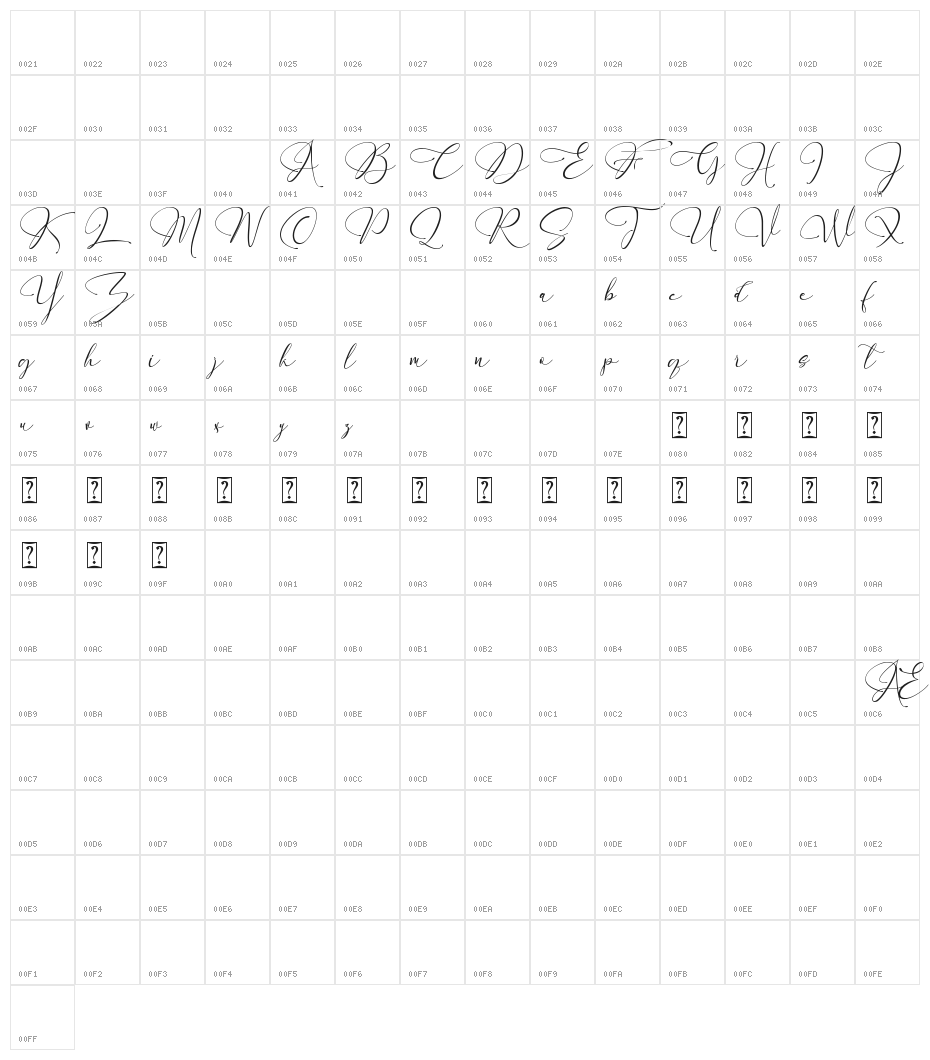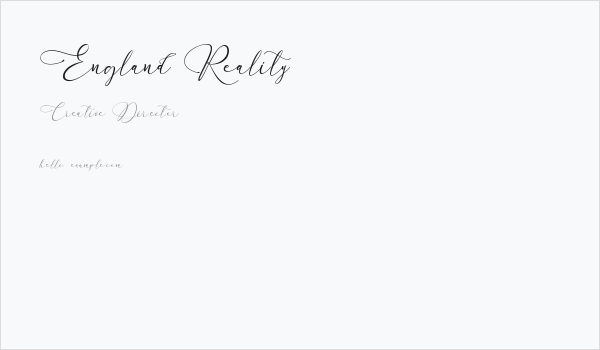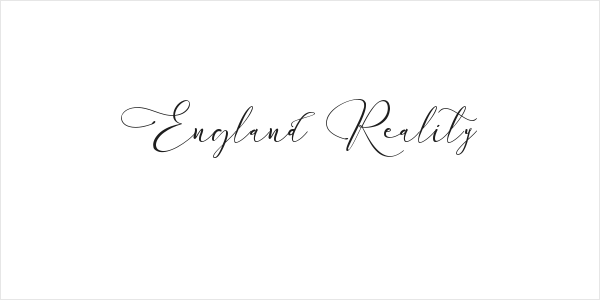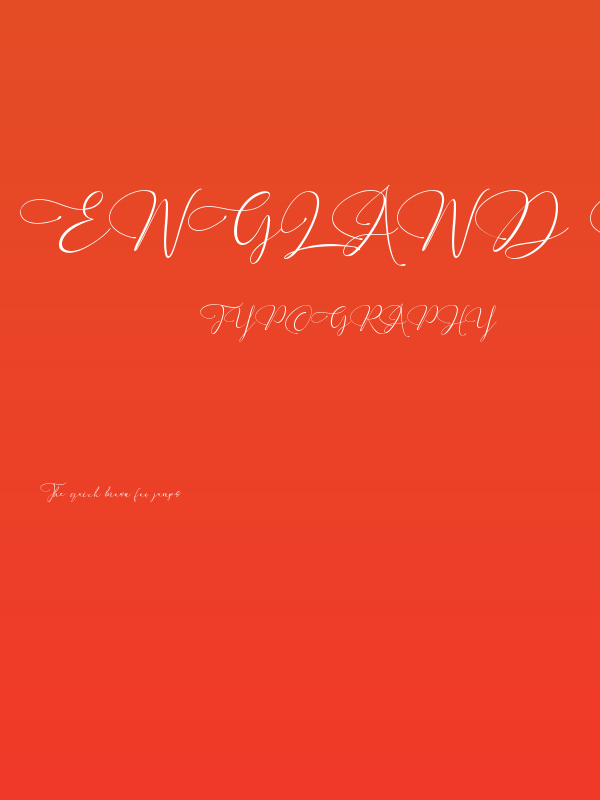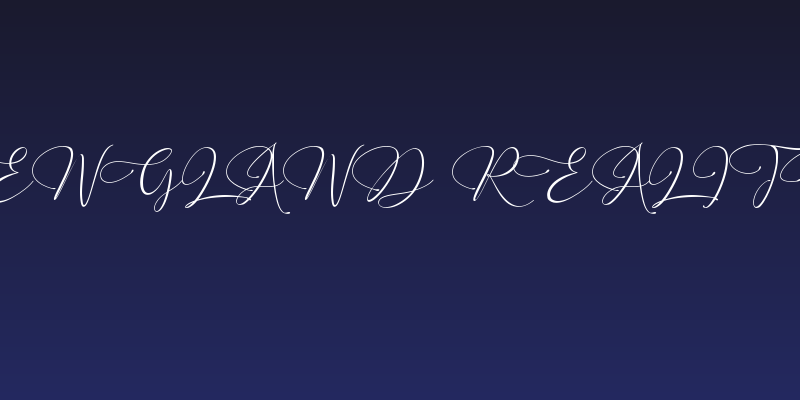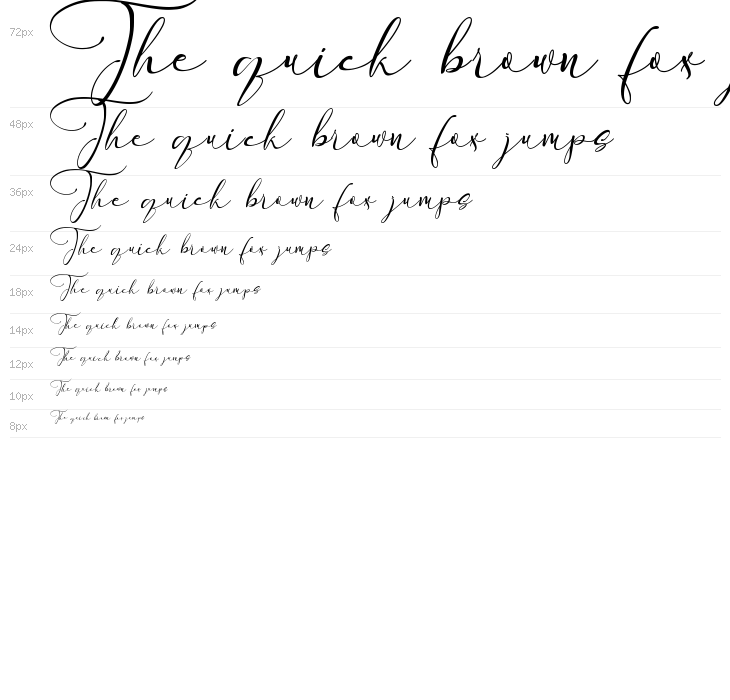
England Reality Font
England Reality Description
This elegant script font features a flowing, cursive style with intricate loops and flourishes. The uppercase letters are particularly ornate, with sweeping lines that extend beyond the baseline and cap height, creating a sense of movement and grace. The lowercase letters maintain a consistent style, with smooth curves and a slightly more restrained use of embellishments. The font's overall appearance is sophisticated and artistic, making it ideal for formal invitations, branding, and decorative purposes. The characters are well-spaced, allowing for readability while maintaining an artistic flair.
| Overall Style | Elegant, Artistic |
| Use Case | Headlines, Invitations, Decorative text |
| Proposed Projects | Ideal for wedding invitations, elegant branding, decorative headings, and artistic projects. |